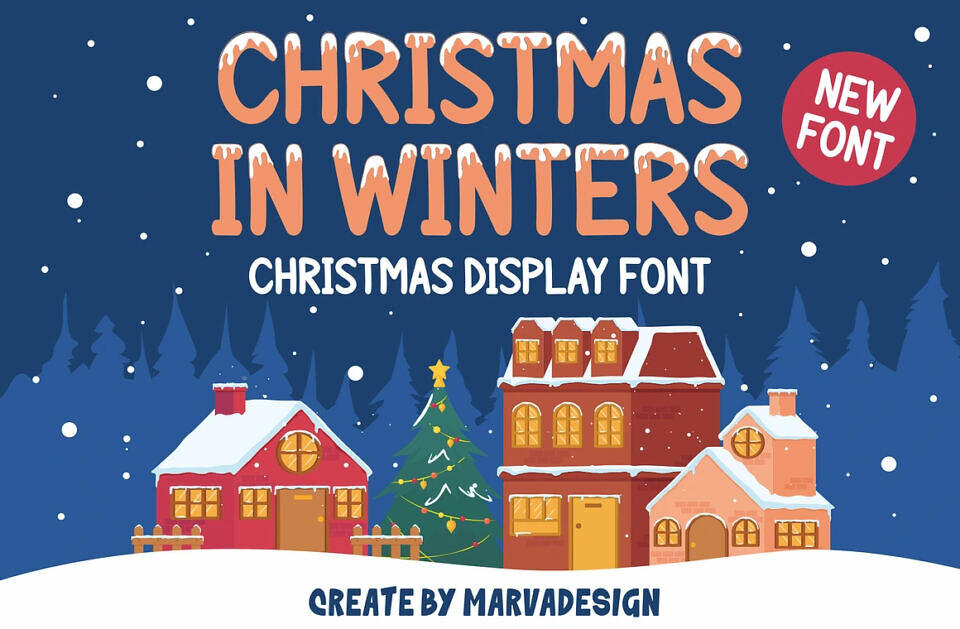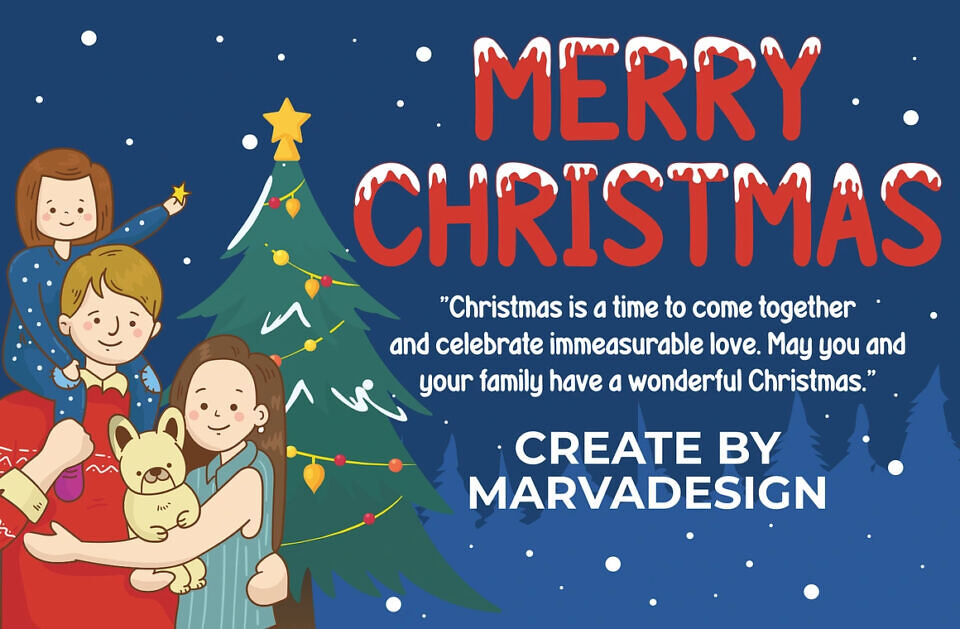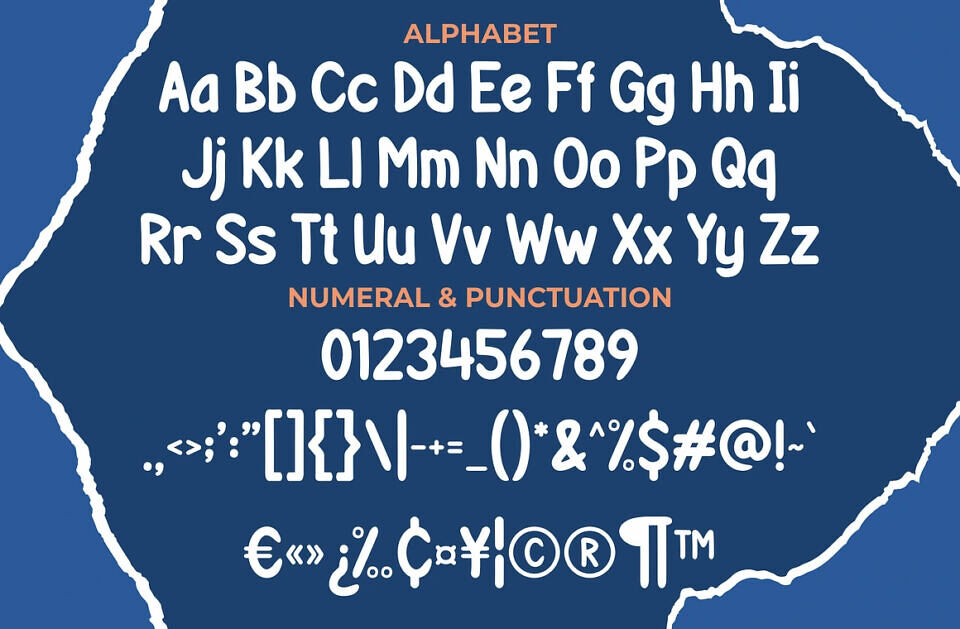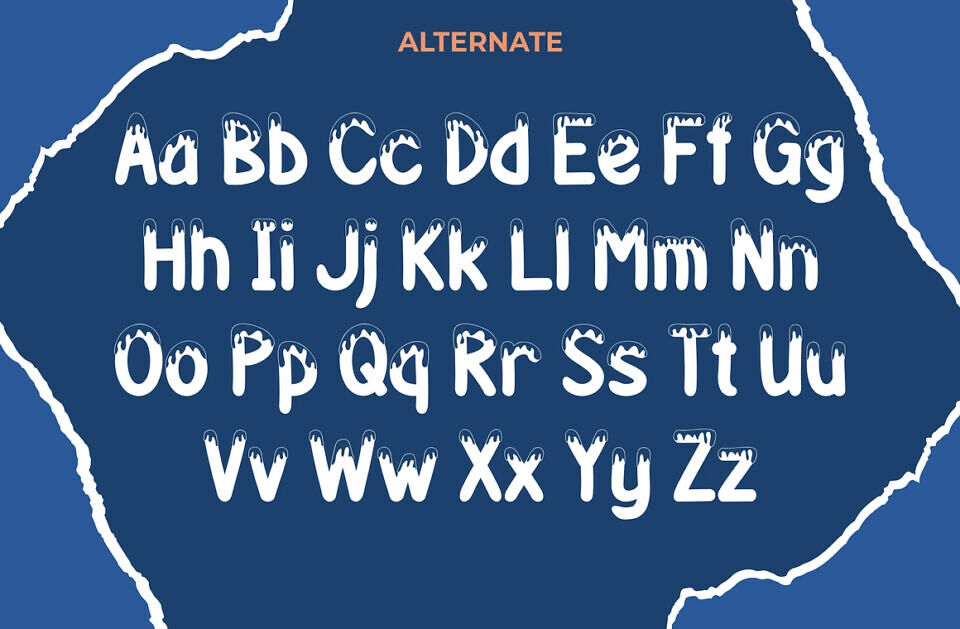
Introducing Christmas In Winter, a bold and Modern Christmas display font. The font is suitable for any branding project like logo, Template Design, Product and many more. outstanding in a wide range of contexts.